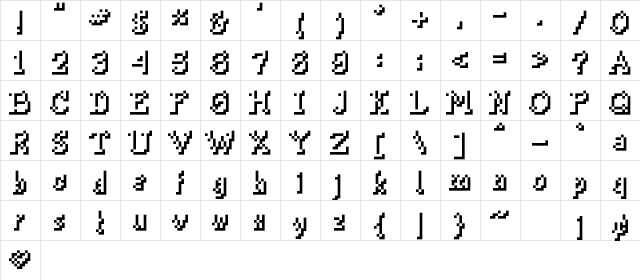
ThisSmackyShadow Medium
Design Context for ThisSmackyShadow Typeface
ThisSmackyShadow brings ornamental detail and strong personality to headlines and identities, where visual impact matters more than quiet functionality.
Font Pairing: Pair with a clean neutral sans-serif for body copy to let ThisSmackyShadow's character lead without overwhelming the composition.
Pro Tip: Treat ThisSmackyShadow as the centrepiece of your typographic hierarchy. One strong heading set in a decorative face can carry an entire layout.